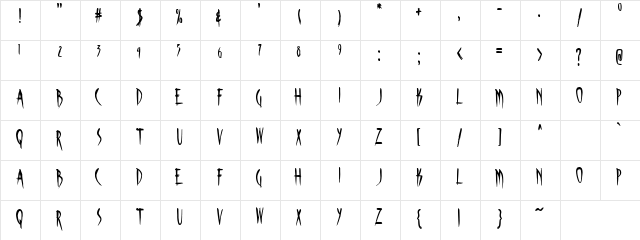
PizzaBreath Regular
Design Context for PizzaBreath Typeface
PizzaBreath is a composed and adaptable typeface that performs quietly and consistently across a wide range of design contexts.